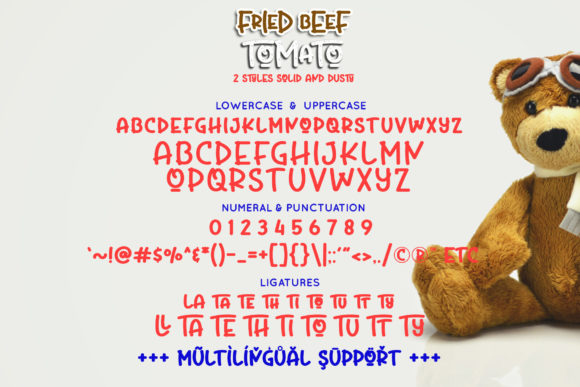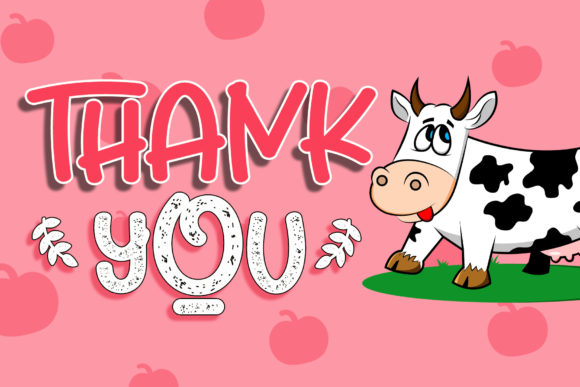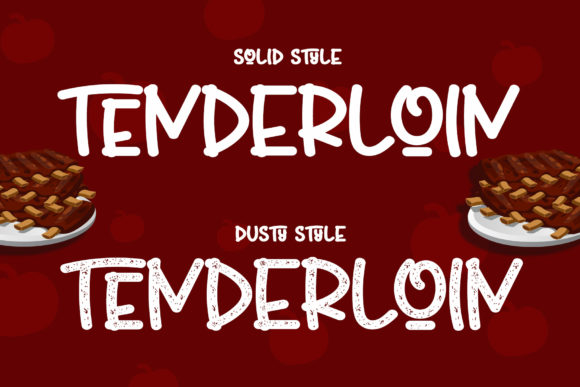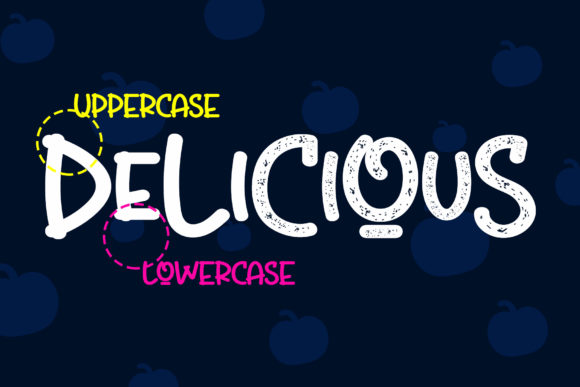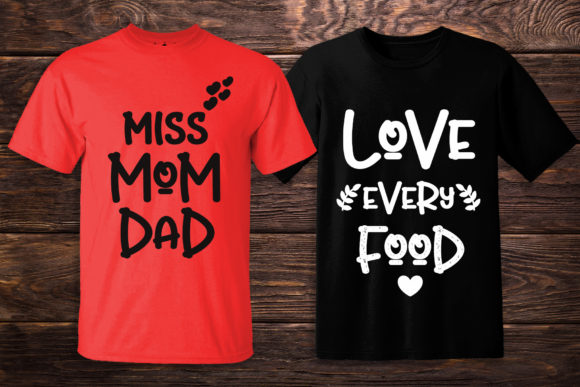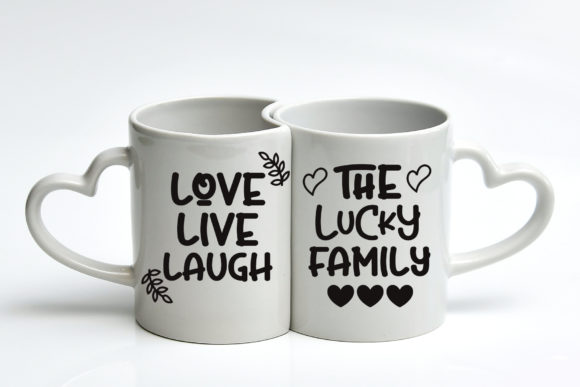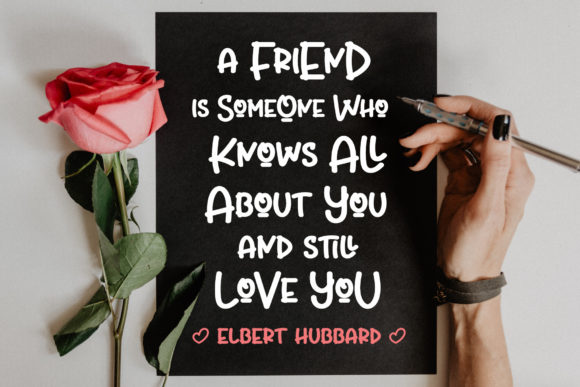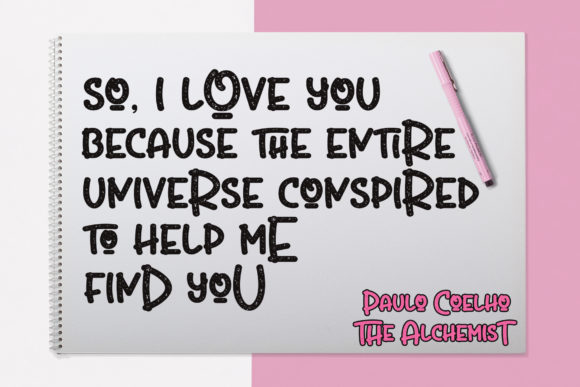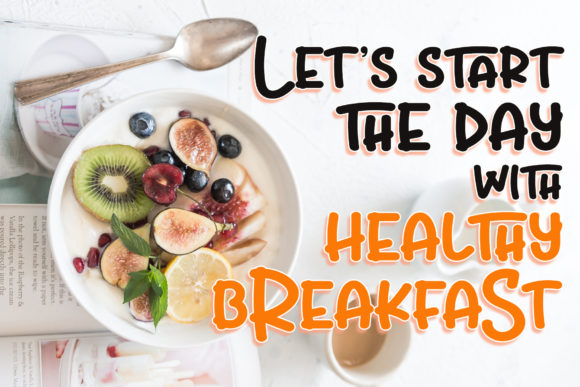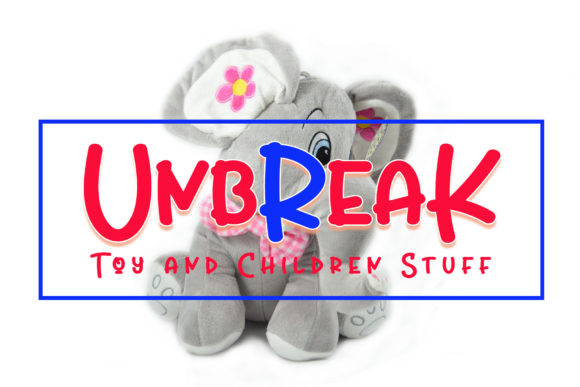
Fried Beef Tomato Font
About Fried Beef Tomato Font
Fried Beef Tomato is a cute and quirky font that will add a playful vibe and cuteness to your design. Use this gorgeous and unique font to bring any DIY project to life!